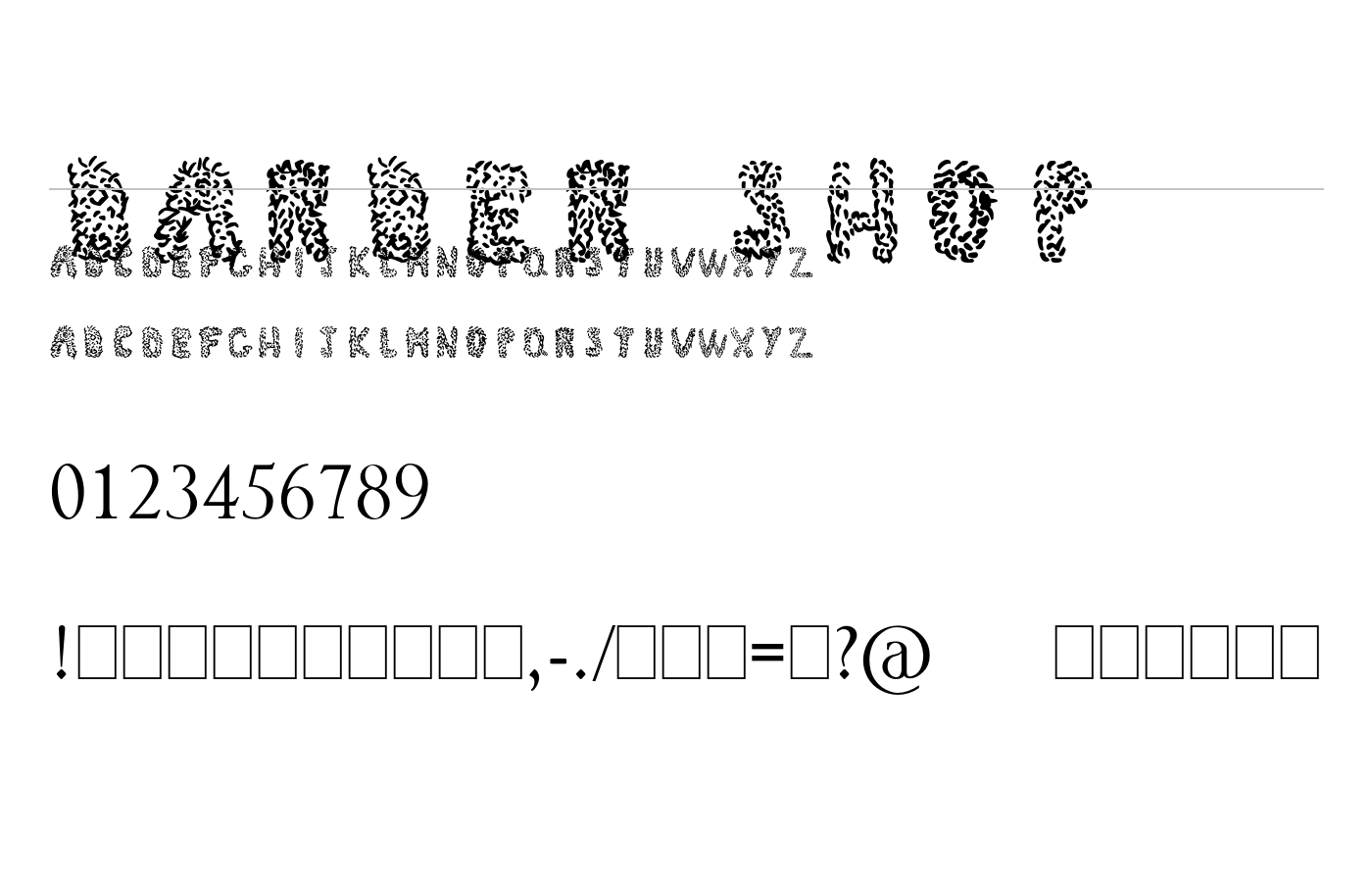
Barber Shop Font is a distinctive display typeface featuring bold, chunky letters made up of scattered, abstract shapes that create a playful and slightly chaotic texture. Its uppercase-only design with irregular forms evokes a fun, retro vibe, ideal for eye-catching headlines, posters, and branding that wants to convey a casual, artistic, and vibrant mood. This font works best in creative and informal contexts where personality and visual impact are key.